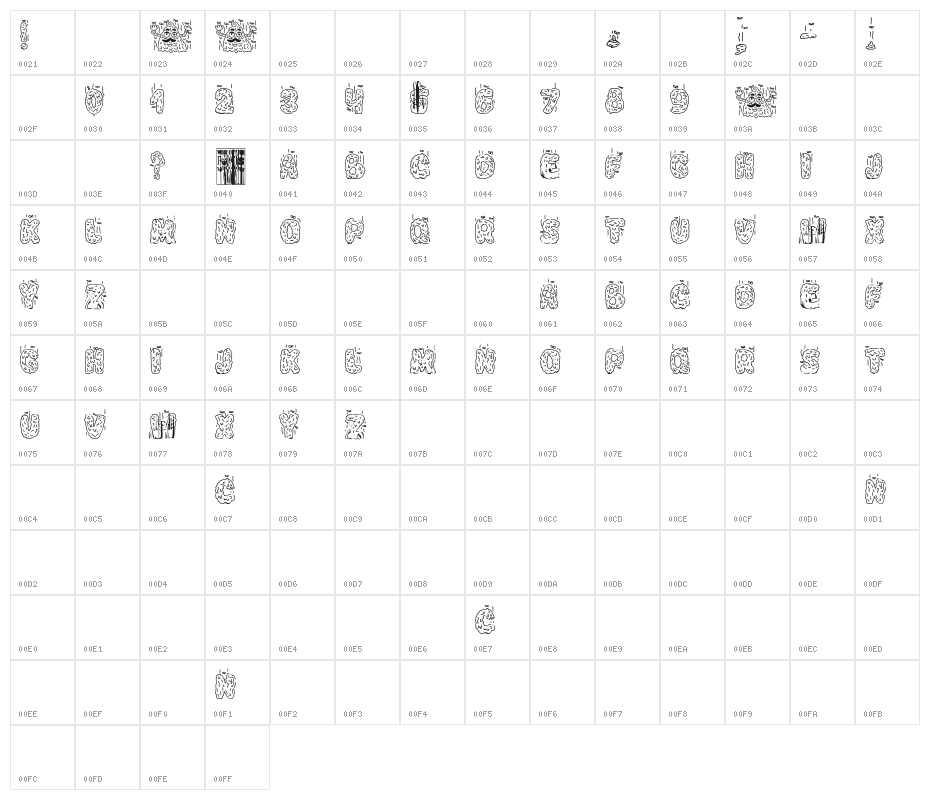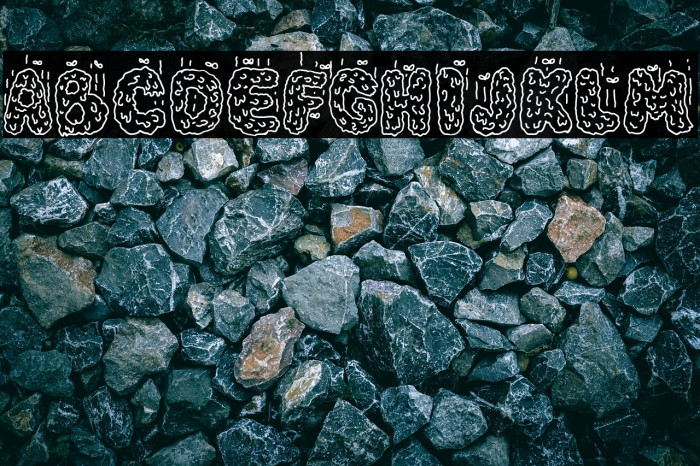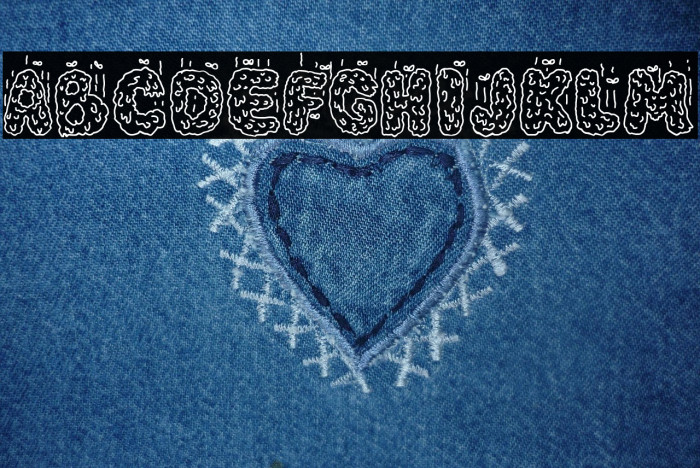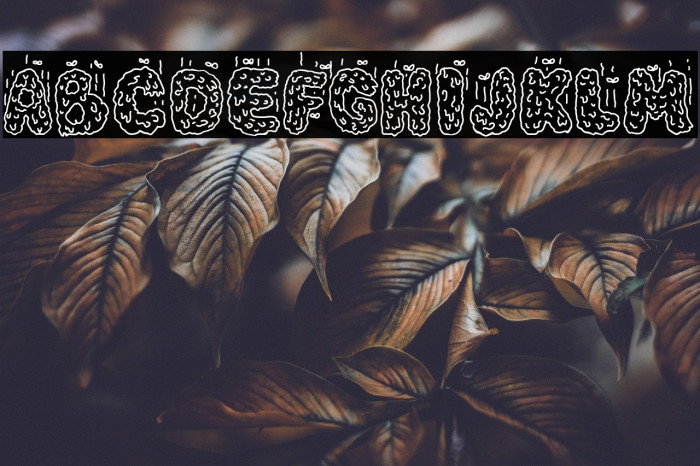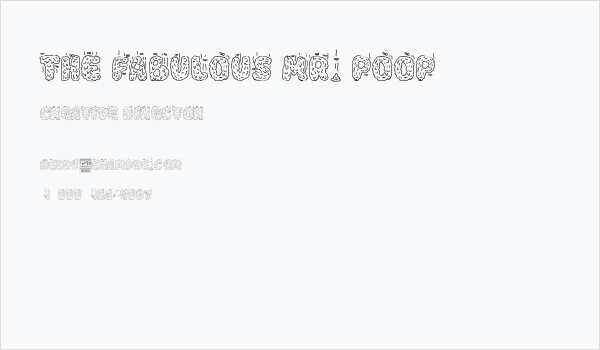
The Fabulous Mr. Poop Font
The Fabulous Mr. Poop Description
This playful and whimsical font features characters that resemble a humorous, cartoonish depiction of a messy, gooey texture. Each letter and number is designed with a unique, organic shape, giving the impression of a lighthearted, fun design. The font includes uppercase and lowercase letters, numbers, and a selection of special characters. Its quirky style is characterized by uneven edges and a playful, almost childlike aesthetic, making it stand out as a decorative choice for creative projects.
| Overall Style | Whimsical, Playful, Cartoonish |
| Use Case | Logos, Posters, Invitations |
| Proposed Projects | Ideal for children's books, comic strips, playful branding, party invitations, and humorous posters. |